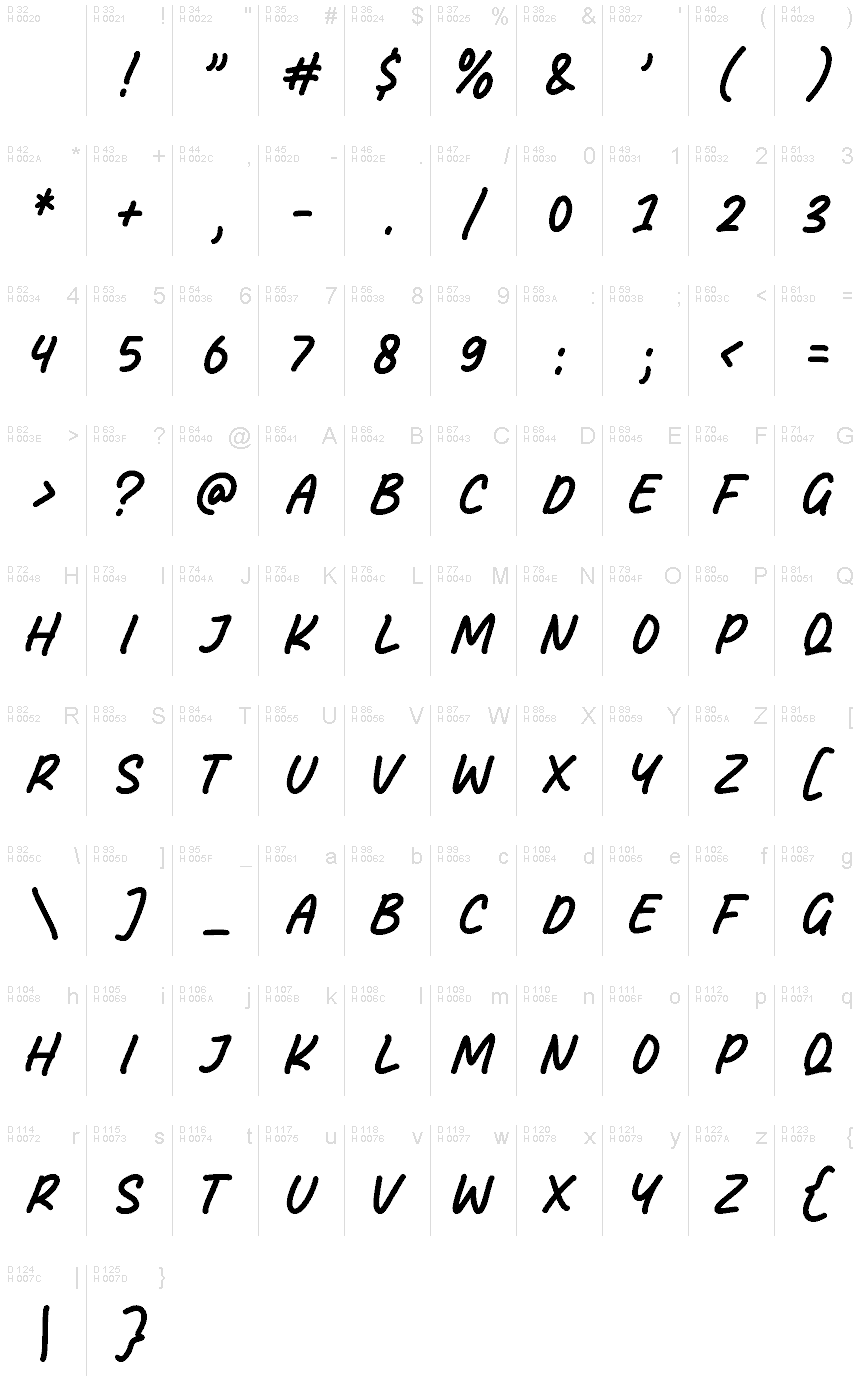
Meatball
Meatball font by Balpirick Studio is a free handwritten font with an energetic and casual style. Its relaxed, modern, and approachable vibe gives it that effortless look everyone loves. This script typeface oozes authenticity, appearing friendly, warm, and playful to anyone reading.